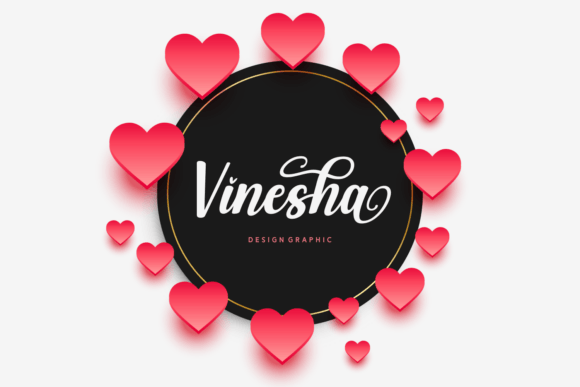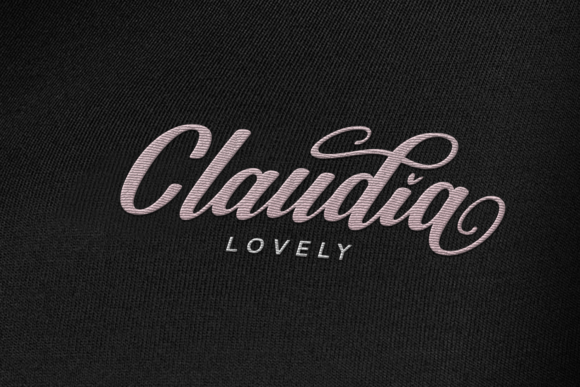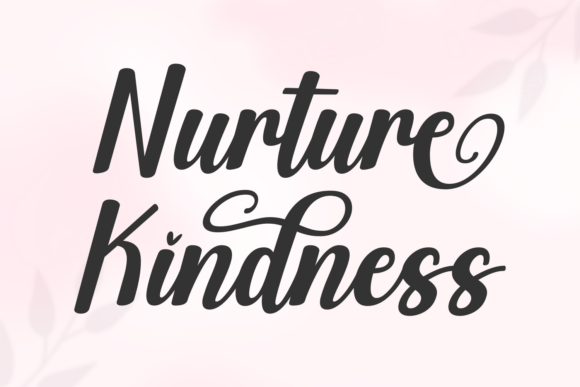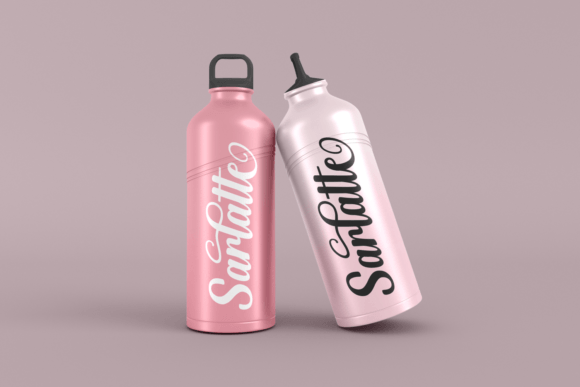
Introducing Aminda Font: Elevate Your Designs with Elegance and Charm
Are you a designer or crafter looking for a font that can add a touch of sophistication and whimsy to your creative projects? Look no further than Aminda Font, a beautiful script font that features elegant, flowing letters. With its stylish curves and soft lines, Aminda is perfect for adding a dash of charm to invitations, greeting cards, and other designs that need a bit of flair.
The Characteristics of Aminda Font
Aminda Font is a script font that boasts a range of characteristics that make it stand out from the crowd. Its elegant, cursive letters are designed to flow smoothly into one another, creating a beautiful, connected look that’s perfect for a variety of design applications. The font features:
- Elegant, flowing letters: Aminda’s letters are designed to be beautiful and flowing, with a smooth, cursive look that’s perfect for creating elegant designs.
- Stylish curves and soft lines: The font’s curves and lines are carefully crafted to create a soft, sophisticated look that’s perfect for adding a touch of charm to your designs.
- Easy to read: Despite its elegant appearance, Aminda Font is easy to read, making it perfect for designs that need to be both beautiful and functional.
Uses for Aminda Font
Aminda Font is a versatile font that can be used in a wide range of design applications. Here are just a few ideas to get you started:
- Invitations: Add a touch of elegance to your wedding invitations, birthday party invites, or other special occasion designs with Aminda Font.
- Greeting cards: Create beautiful, one-of-a-kind greeting cards for birthdays, holidays, or other special occasions with Aminda Font.
- Creative projects: Use Aminda Font to add a touch of whimsy and charm to your creative projects, such as scrapbooking, crafting, or DIY designs.
Why Choose Aminda Font?
With so many fonts to choose from, why should you choose Aminda Font for your next design project? Here are just a few reasons:
- Unique and elegant: Aminda Font is a unique and elegant font that will add a touch of sophistication to your designs.
- Easy to use: The font is easy to read and use, making it perfect for designers and crafters of all skill levels.
- Versatile: Aminda Font can be used in a wide range of design applications, from invitations and greeting cards to creative projects and more.
Tips for Using Aminda Font
Here are a few tips for getting the most out of Aminda Font:
- Use it sparingly: Aminda Font is a elegant font that can add a touch of sophistication to your designs. Use it sparingly to create a beautiful, eye-catching effect.
- Pair it with other fonts: Aminda Font pairs well with a range of other fonts, from simple sans-serif fonts to more elaborate script fonts. Experiment with different pairings to find the one that works best for your design.
- Experiment with colors and textures: Aminda Font looks beautiful in a range of colors and textures. Experiment with different colors and textures to find the one that works best for your design.
Aminda Font is a beautiful script font that features elegant, flowing letters and stylish curves and soft lines. With its easy-to-read design and versatile uses, Aminda Font is perfect for adding a touch of charm and sophistication to a wide range of design applications. Whether you’re a designer or crafter looking for a unique and elegant font, Aminda Font is a great choice. So why wait? Download Aminda Font today and start creating beautiful, one-of-a-kind designs that will impress and delight!